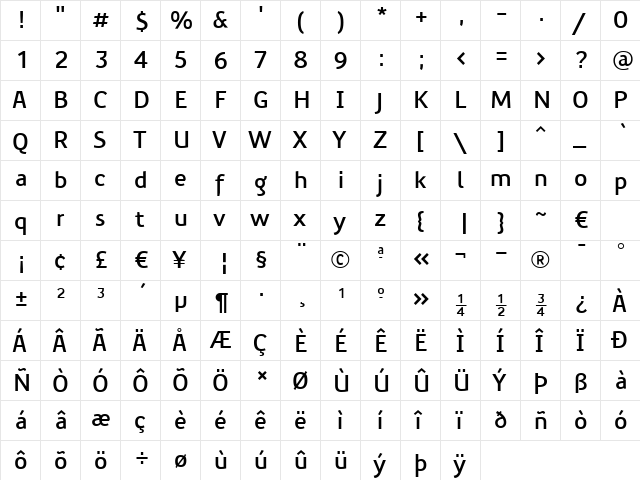
PreciousSansDemiBold Regular
Design Context for PreciousSansDemiBold Typeface
PreciousSansDemiBold takes a measured approach to typography — its balanced proportions and neutral character make it a reliable workhorse for both digital and print work. Its bold stroke weight gives it real presence on the page.